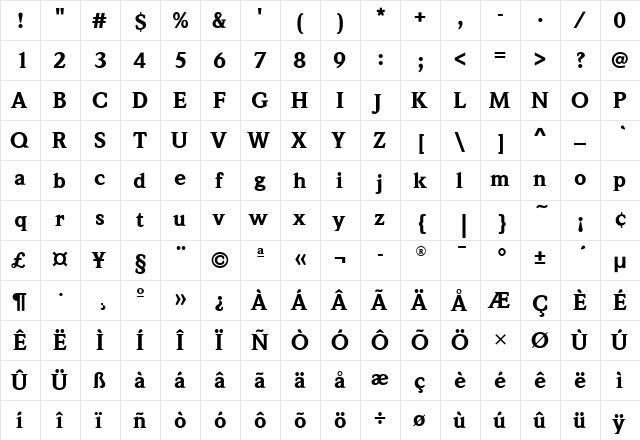
WeidemannMdITC Black Font Preview
WeidemannMdITC Black
WeidemannMdITC Black Font Details
Design Context for WeidemannMdITC Typeface
WeidemannMdITC offers clean, dependable letterforms without strong stylistic allegiance, making it a practical choice for designers who need flexibility.